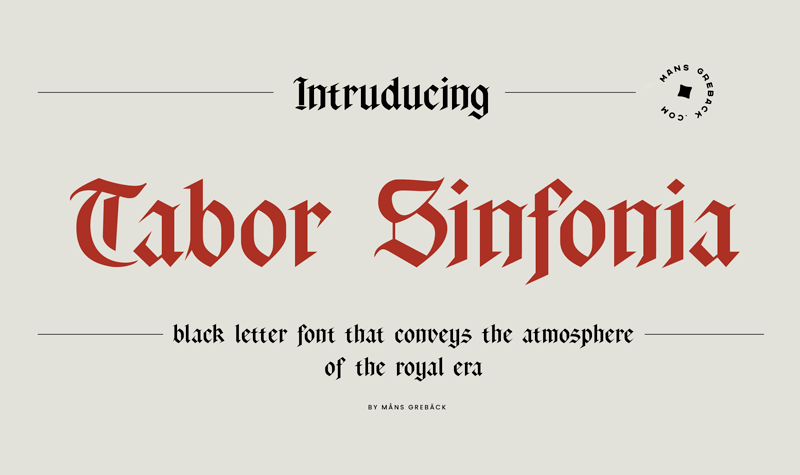
Preview and download Tabor Sinfonia Font. Created by Måns Grebäck in Gothic Medieval styles with Free for personal use license.
NOTE: This font is for PERSONAL USE ONLY! To purchase a commercial license, visit: http://mn.sg/tabor-sinfonia Tabor Sinfonia is a blackletter typeface that marries the historic beauty of Gothic script with the rhythm and harmony of music. For questions, please visit www.mansgreback.com/faq |